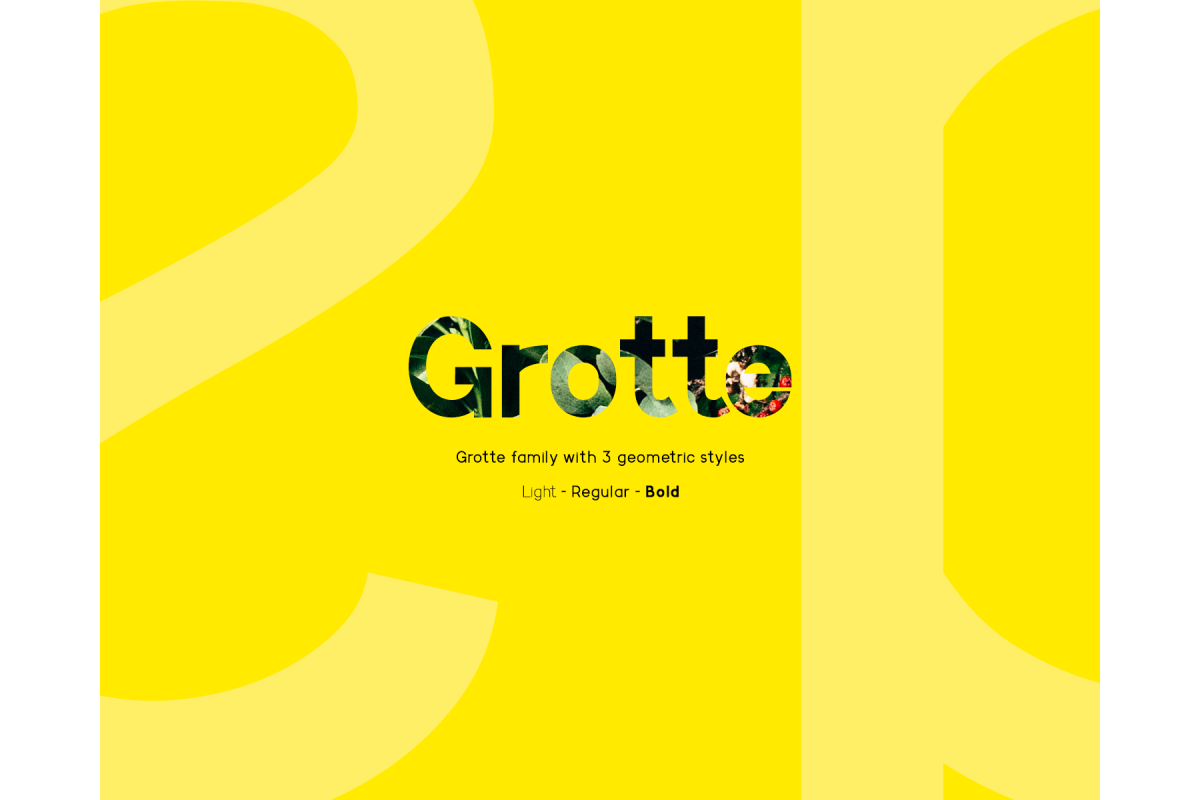
Grotte Font
Grotte it's simple sans-serif font with geometric outlines, elegant curves which can be used in posters, brandings, art, logos, typography, commercial arts, etc.
3 weights:
-Grotte Light
-Grotte Regular
-Grotte Bold
Support spanish, portuguese, german, danish, french, canadian french languages and cyrillic.